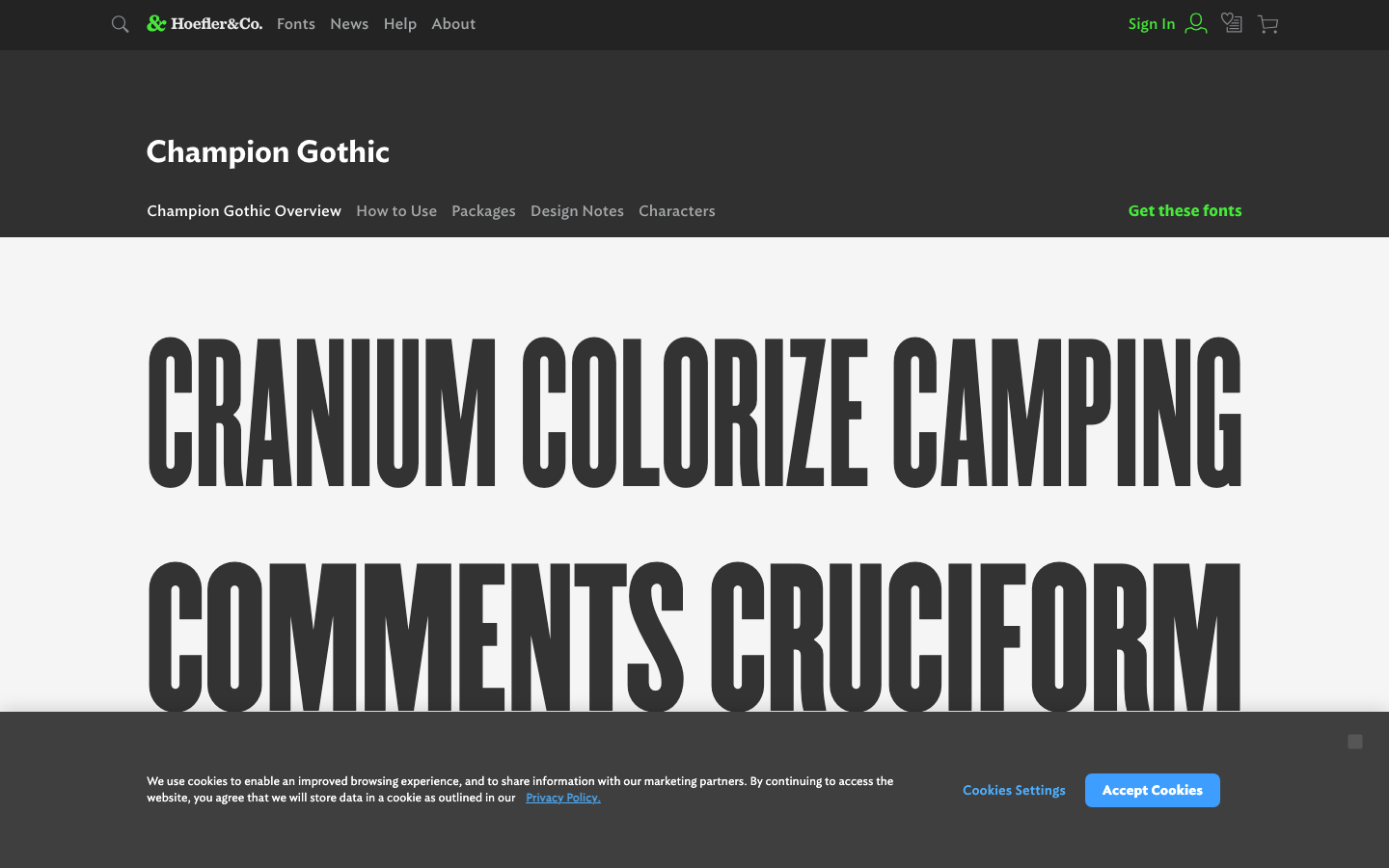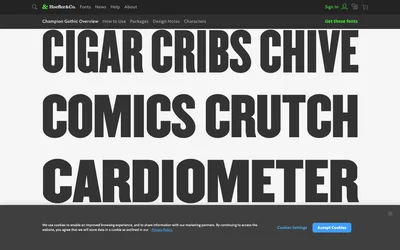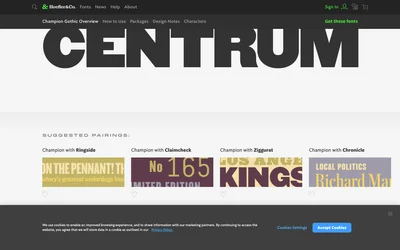
Champion Gothic vs Knockout
Champion Gothic is a sans-serif typeface while Knockout takes a display approach. Compare which suits your Sports project.
Champion Gothic
Knockout
| Feature | Champion Gothic | Knockout |
| Classification | sans-serif | display |
| Language Support | latin | latin, latin-extended |